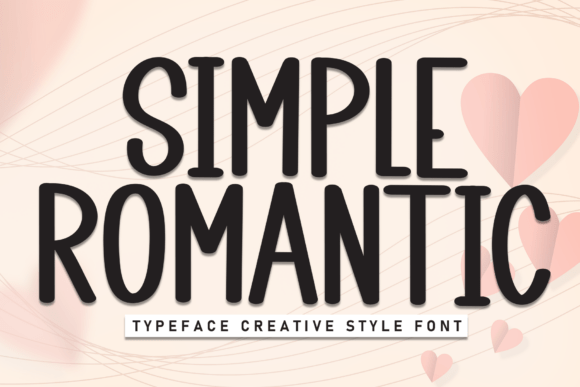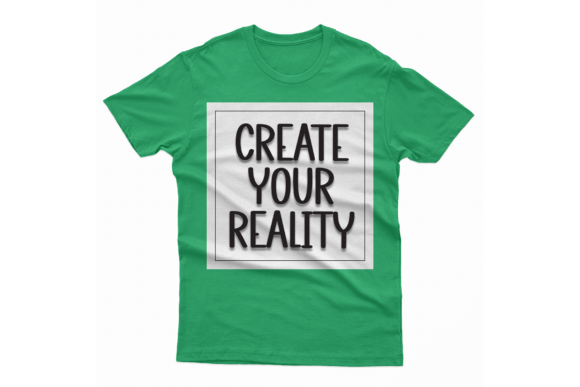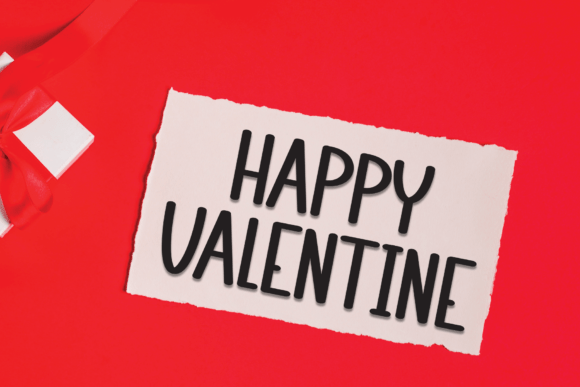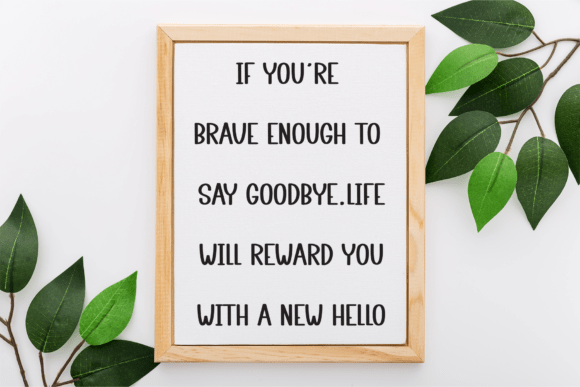
Simple Romantic Font
About the Simple Romantic Font
Let us introduce you to Simple Romantic Font, where timeless design meets modern craftsmanship. Lively and full of personality, this display handwritten font brings the charm of natural handwriting to bold, eye-catching designs. With its playful curves and casual style, it’s perfect for logos, posters, packaging, quotes, and social media graphics. It strikes the perfect balance between readability and character, giving your work a friendly, handcrafted feel.
Simple Romantic Font Usage Examples
Simple Romantic Font Example